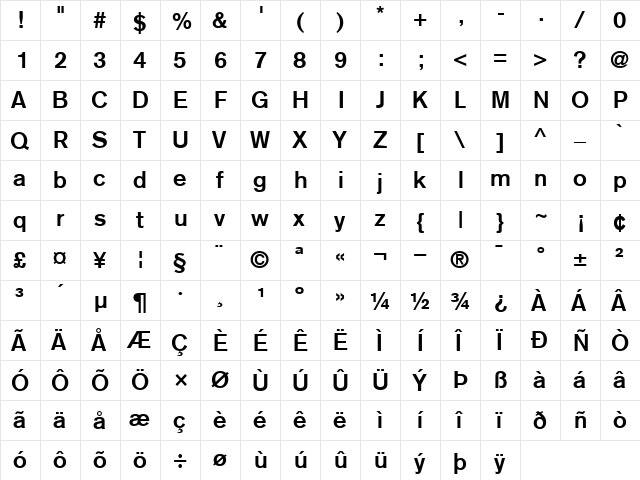
Akzidenz Gr Lt Bold
Design Context for Akzidenz Gr Lt Typeface
Akzidenz Gr Lt offers clean, dependable letterforms without strong stylistic allegiance, making it a practical choice for designers who need flexibility. The heavy weight commands attention and anchors typographic hierarchies.